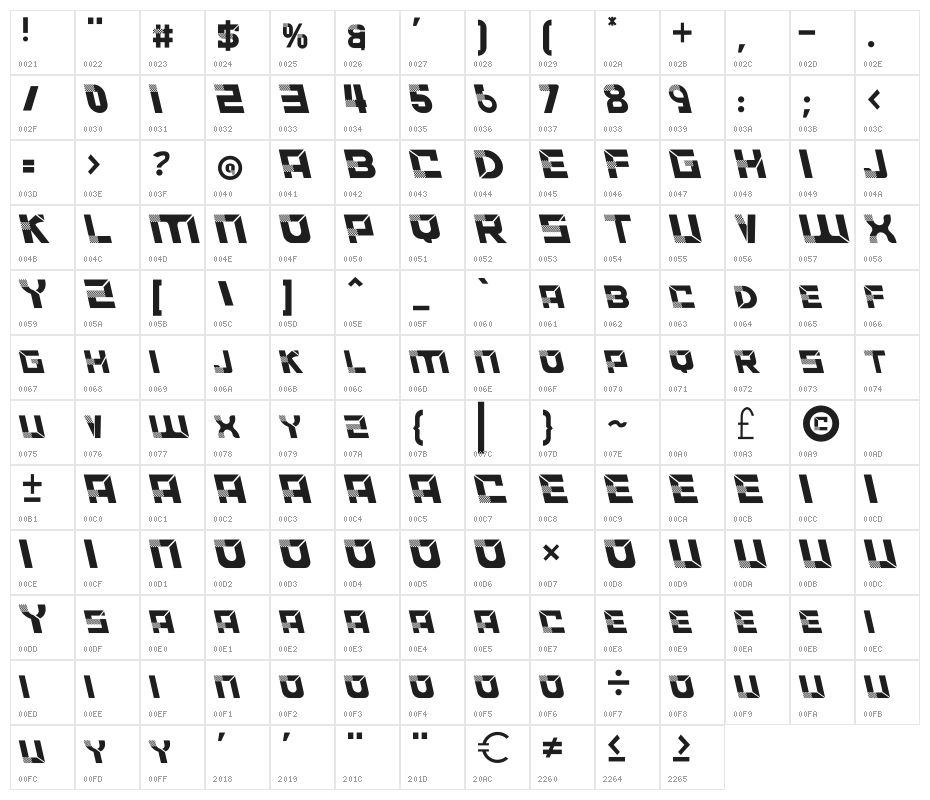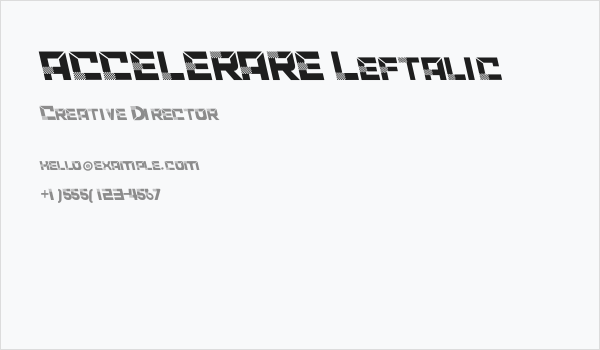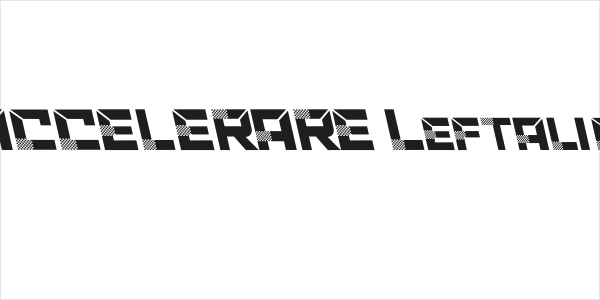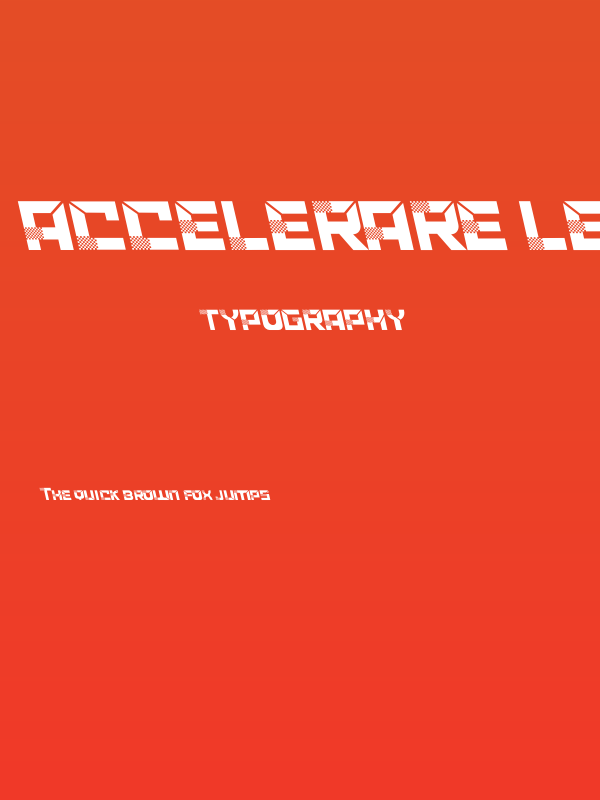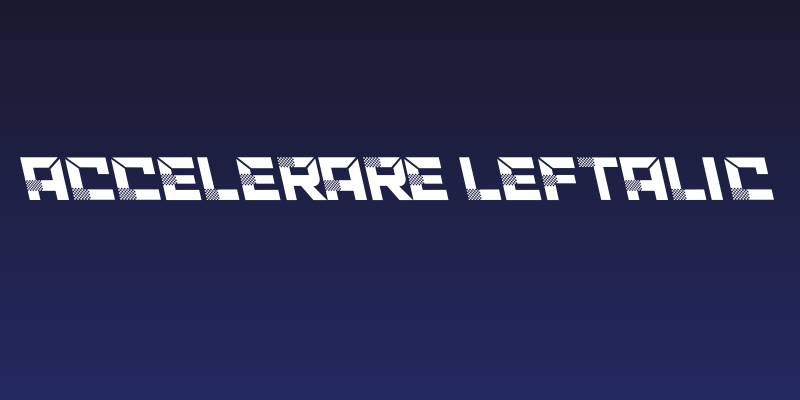
ACCELERARE Leftalic Font
ACCELERARE Leftalic Description
This font features a bold, geometric design with a distinct italic slant, giving it a dynamic and forward-moving appearance. The characters are constructed with sharp angles and straight lines, creating a sense of speed and modernity. The use of a halftone pattern within the letters adds a layer of texture and visual interest, making it stand out in any design. The font is highly stylized, with each character maintaining a consistent width, contributing to a uniform and cohesive look. The numbers and special characters follow the same design principles, ensuring versatility across various applications. This font is ideal for projects that require a futuristic or high-tech aesthetic.
Proposed ProjectsIdeal for branding, sports team logos, tech-related projects, and futuristic designs.